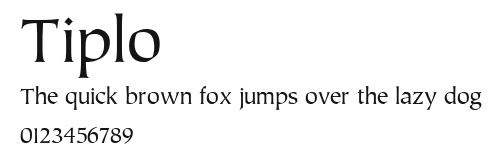
• Font Name: Tiplo
About Tiplo.ttf
Tiplo.ttf is a modern, elegant sans-serif font designed for ultimate readability and visual harmony. Perfect for branding, headlines, web design, and print materials.